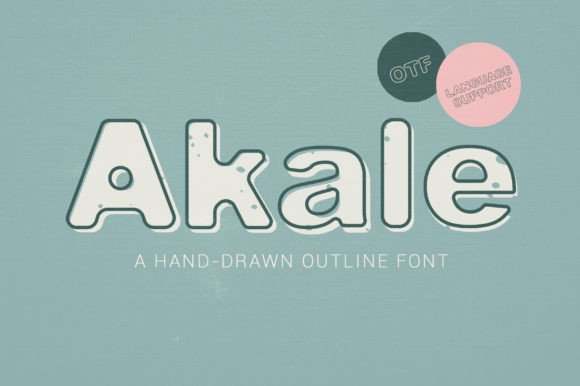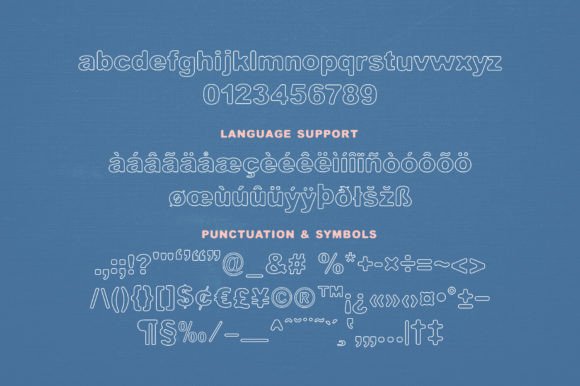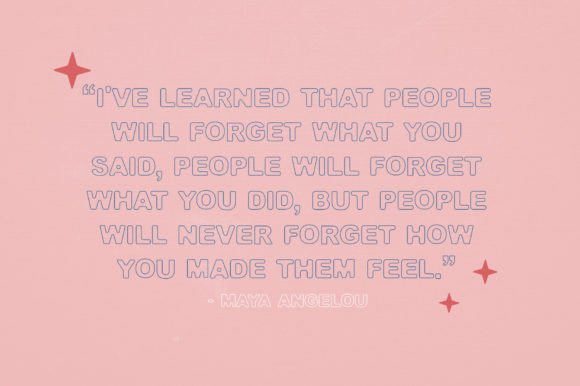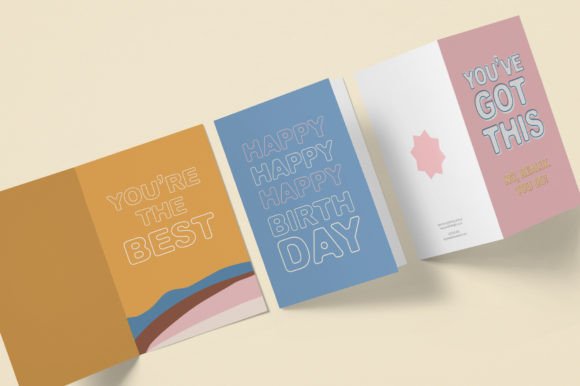
Akale Outline Font
About the Akale Outline Font
Discover the charm of Akale Outline Font. This font is a perfect blend of modern aesthetics and classic appeal. Introducing Akale, a lovely hand drawn outline font with modern letters. It will add an incredibly joyful touch to your designs. Add this beautiful font to each of your creative ideas and notice how it makes them stand out!
Akale Outline Font’s playful, hand-drawn quality makes it ideal for headlines, short text blocks on posters, and branding elements where a touch of whimsy is desired. It works exceptionally well for packaging design, particularly for products targeting a younger or more playful demographic. However, its outlined nature and less-than-optimal x-height make it unsuitable for body text or UI elements requiring high readability.
Consider pairing Akale with a clean sans-serif like Open Sans for a balanced contrast, or a geometric sans-serif such as Futura for a more modern feel. For a more sophisticated look, a classic serif like Garamond could provide elegant counterpoint to Akale’s casual charm.
Akale’s overall personality is best described as cheerful and approachable, yet stylishly modern. It’s a great choice for projects that need a lighthearted yet sophisticated touch, such as children’s book illustrations, invitations, or branding for creative businesses.
Akale Outline Font Example